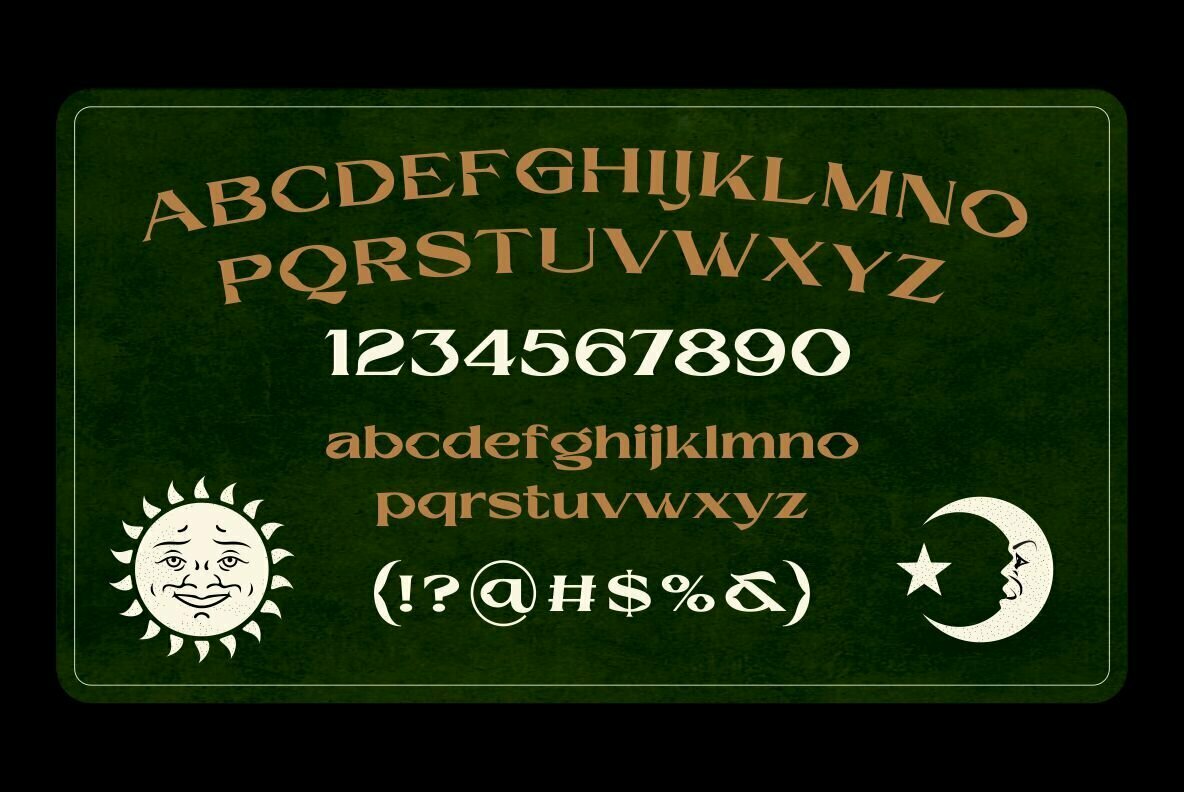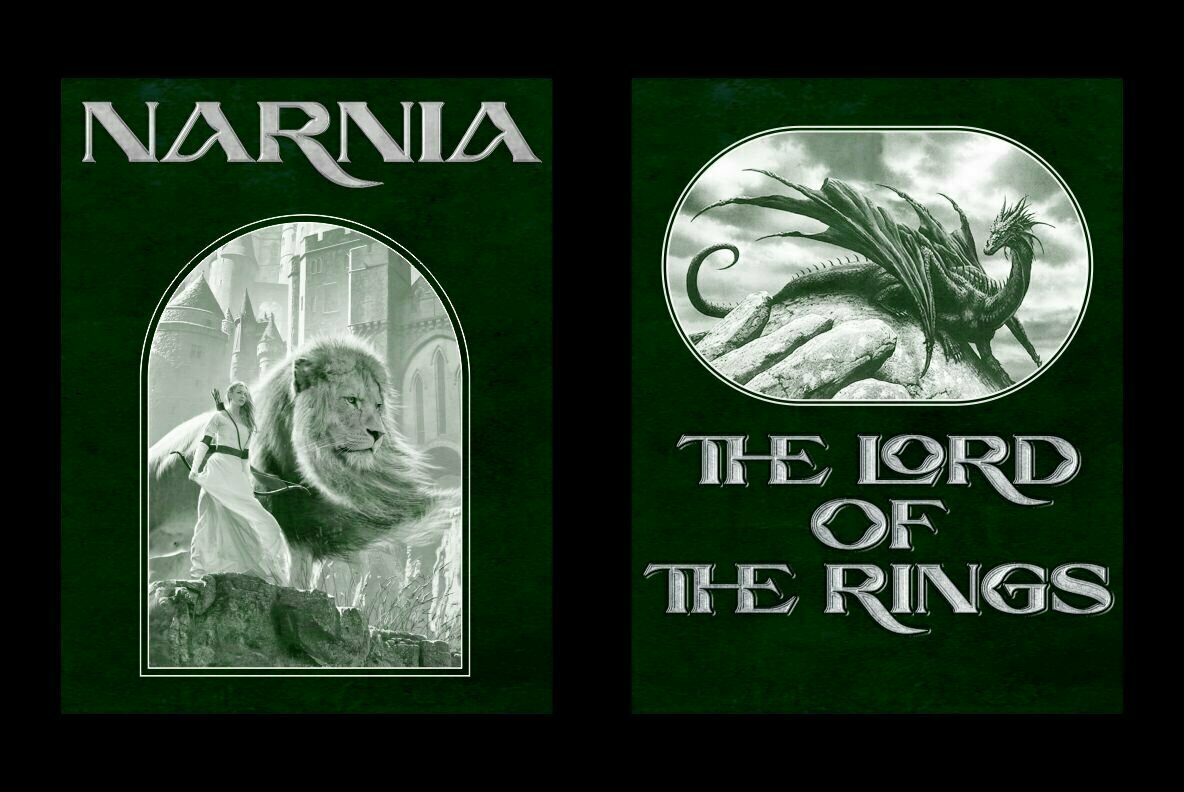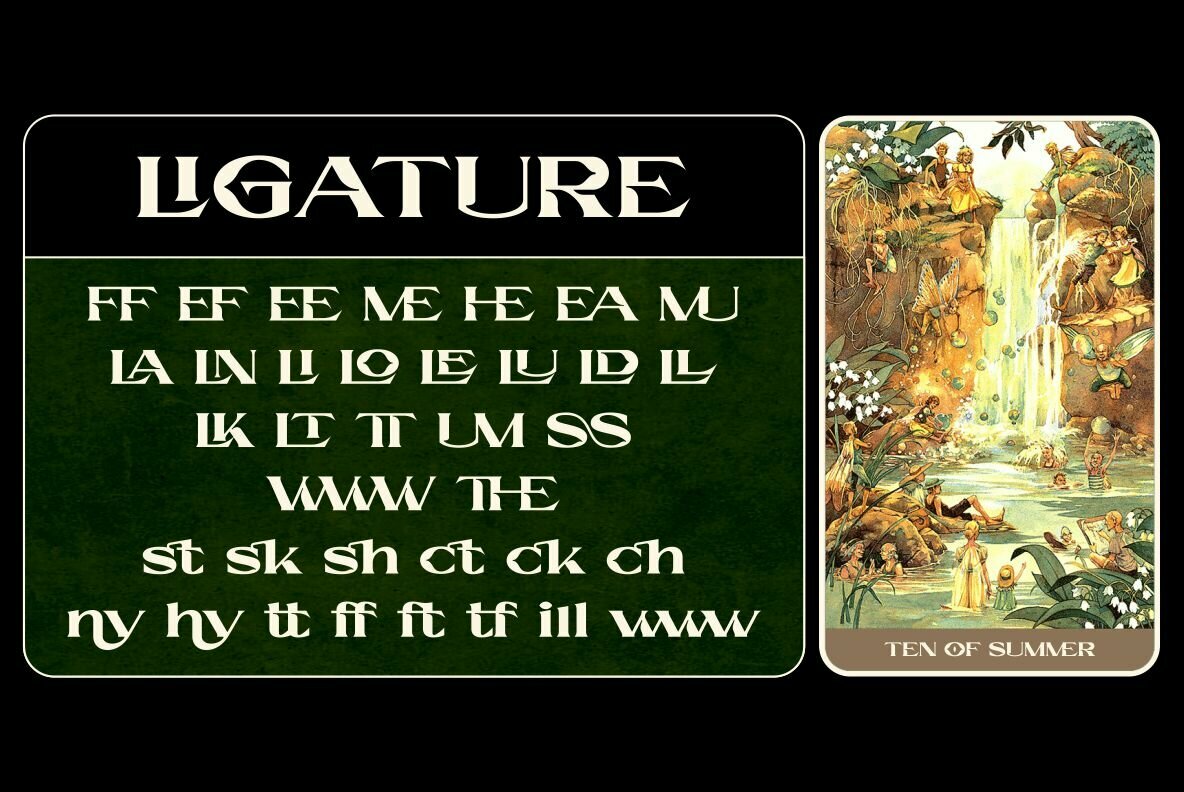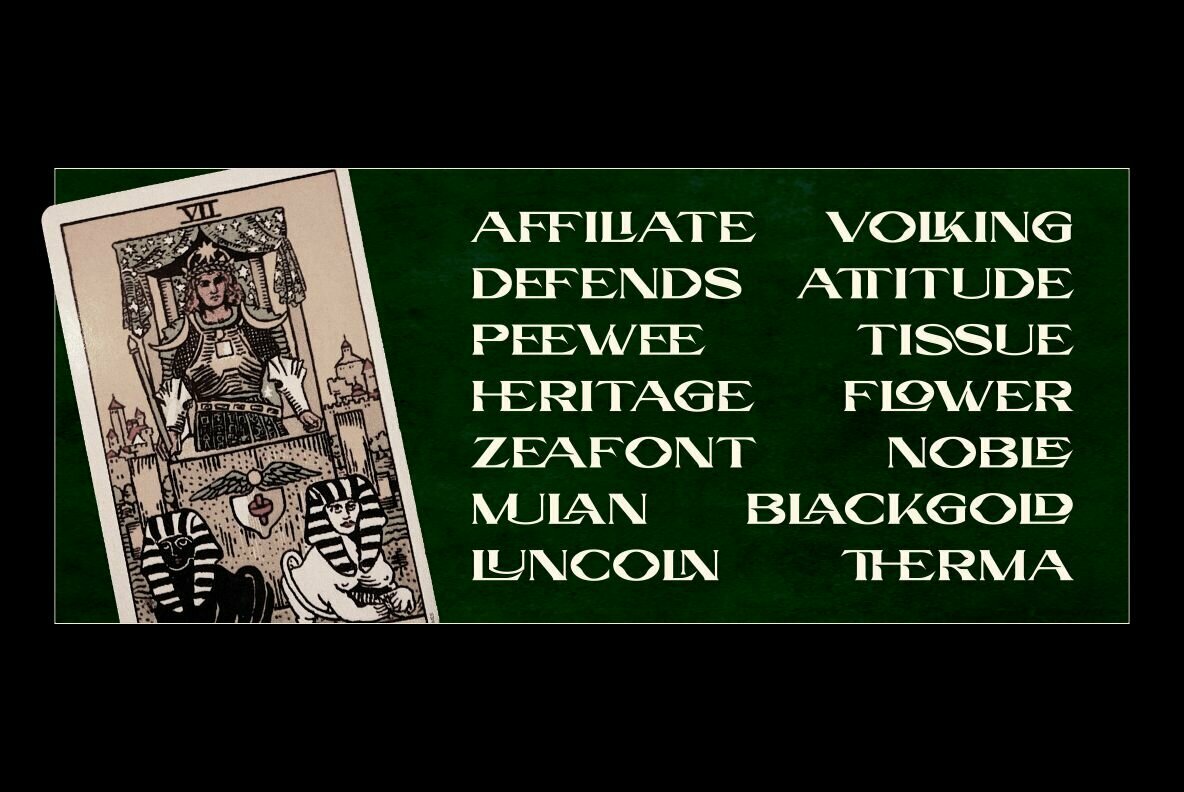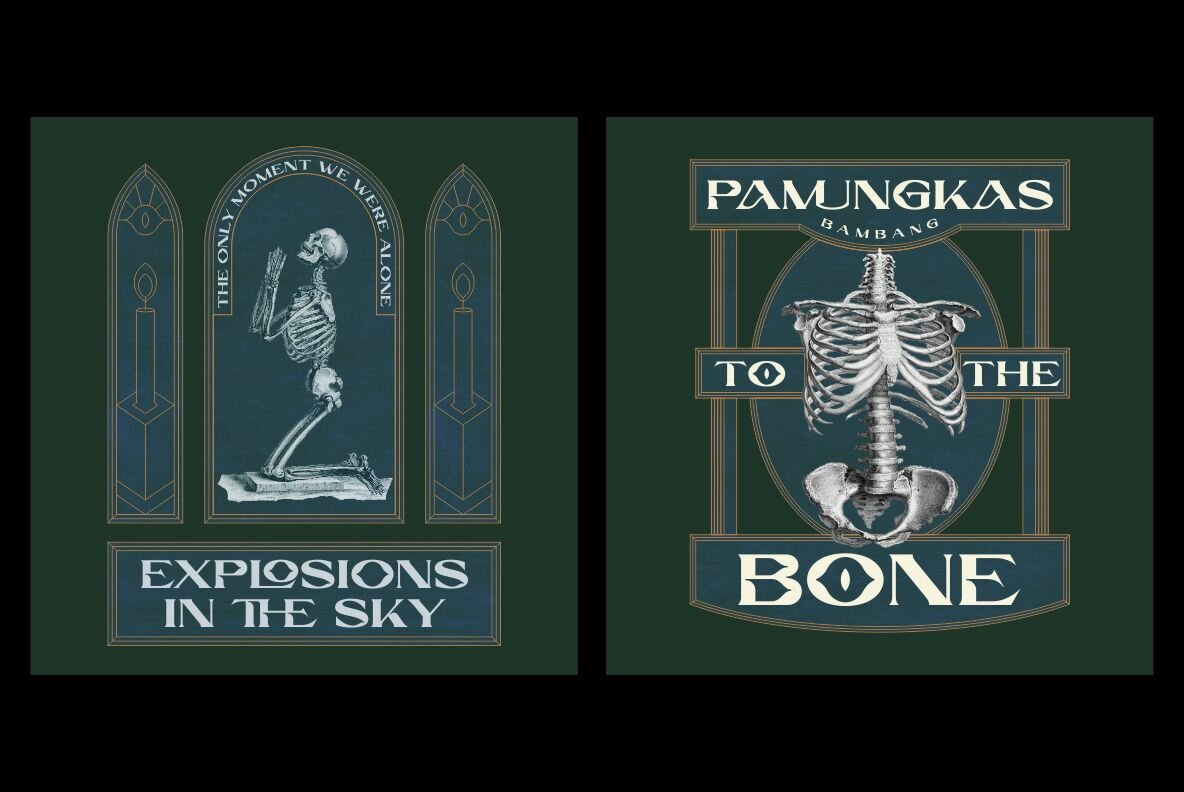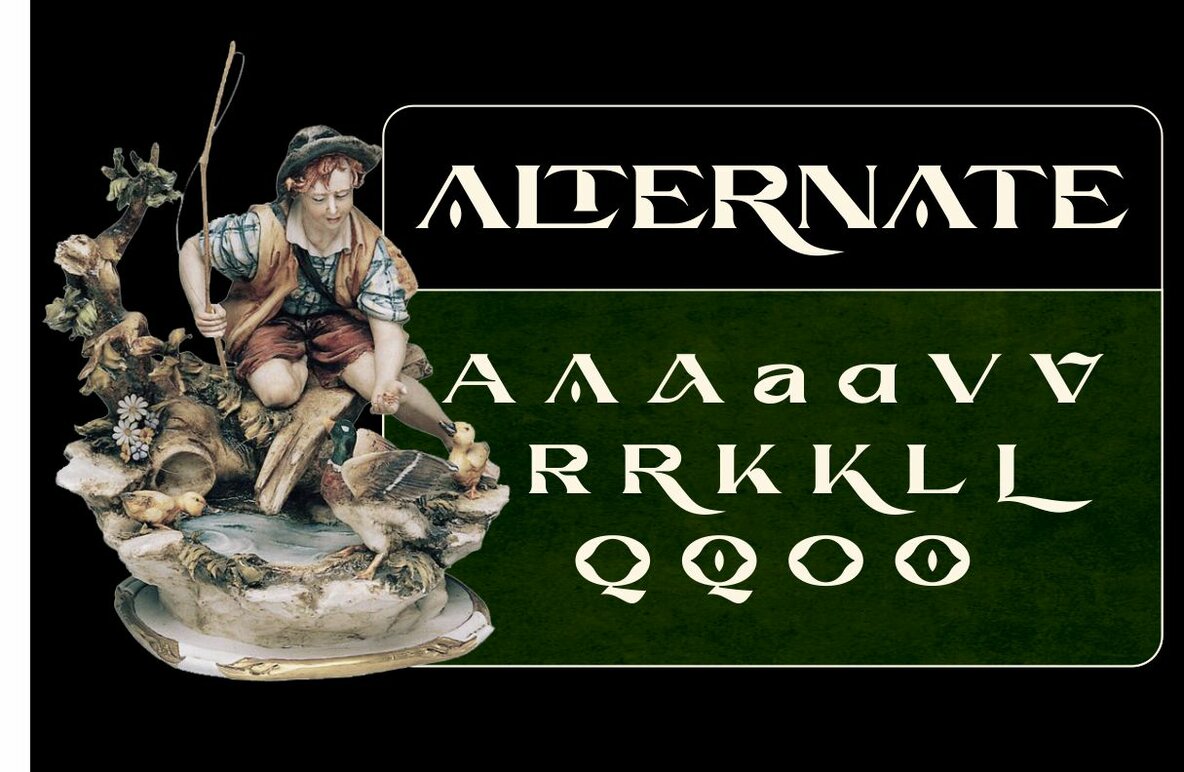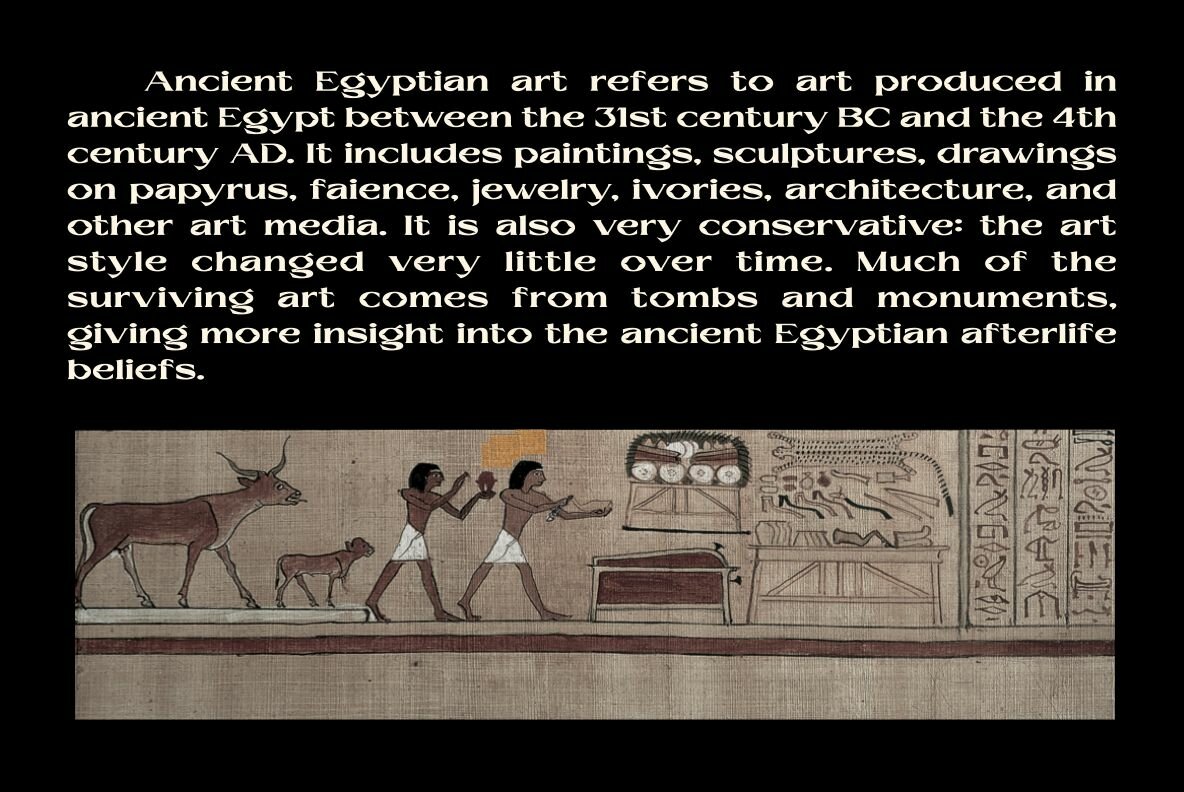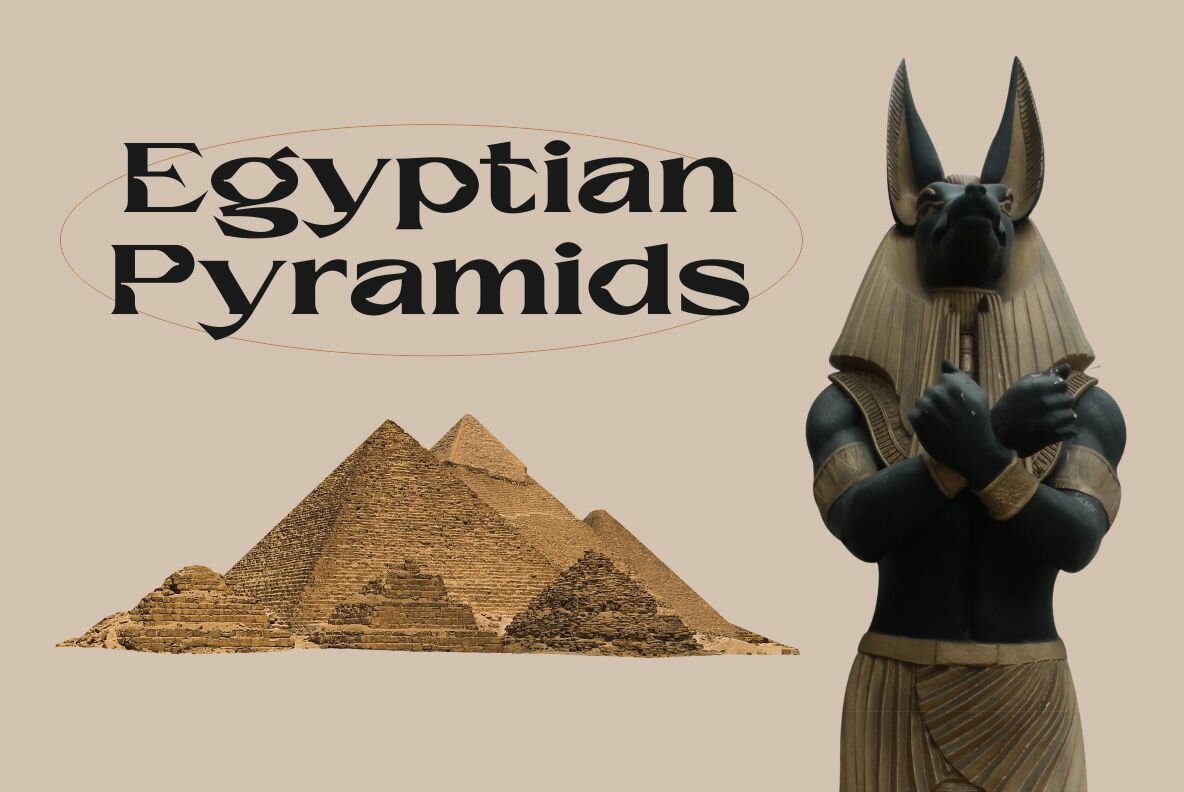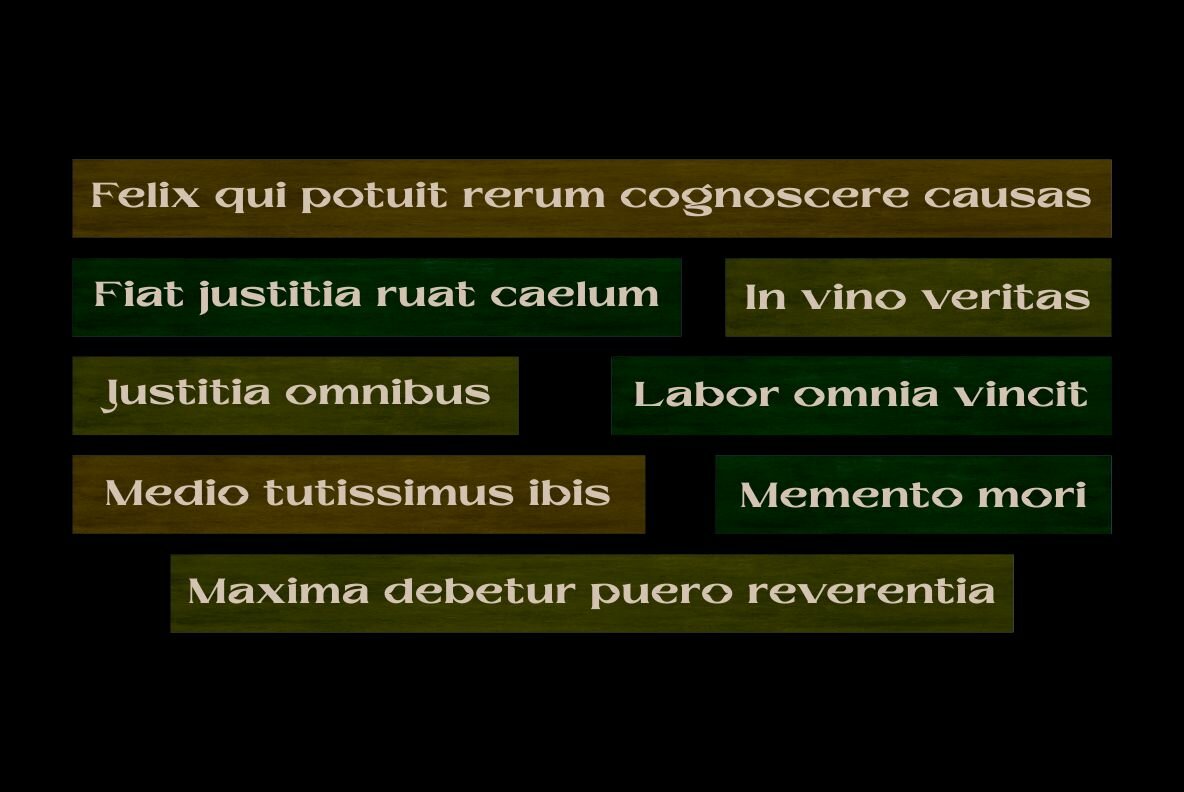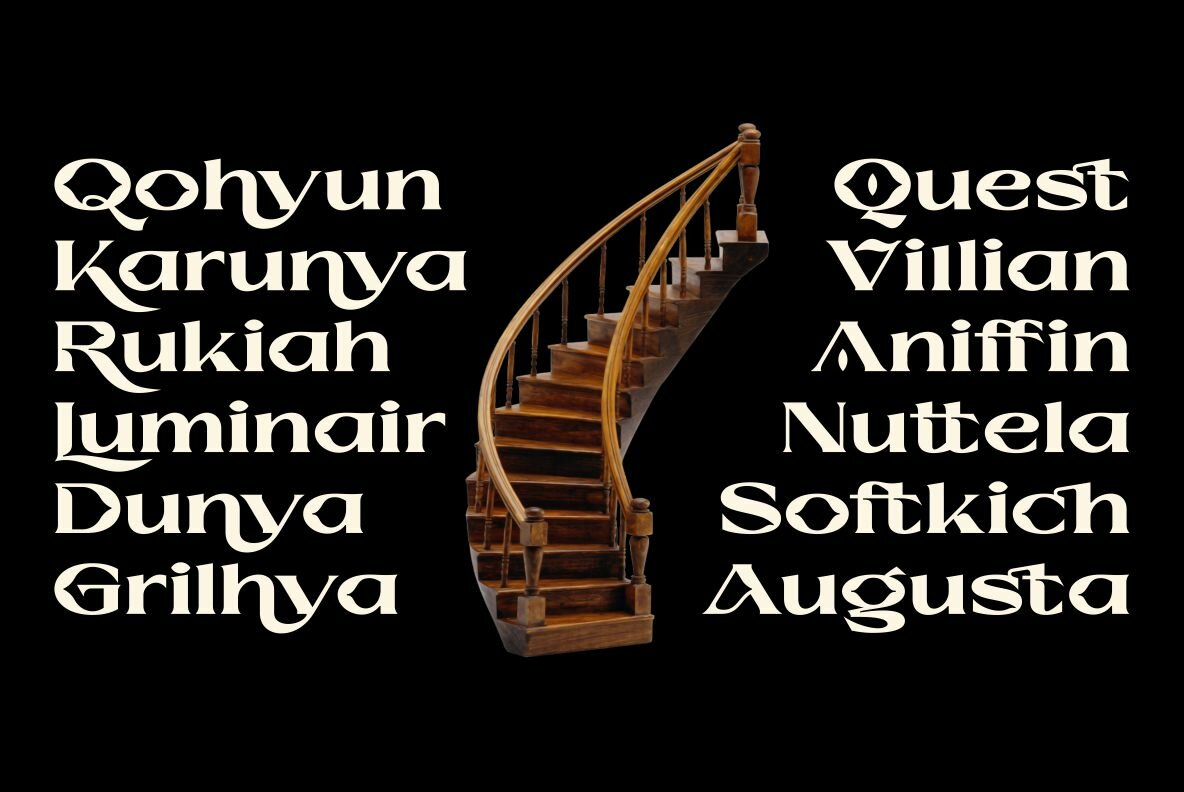
Olieva Font
Olieva
Olieva is a captivating serif font that embodies a blend of boldness and distinctiveness, seamlessly drawing inspiration from the grandeur of medieval cinema and the artistry of ancient Egypt. This unique typeface brings a touch of the past into the digital era, offering a sophisticated style that enhances a wide array of design projects.Olieva: A Bold Serif With Historical Charm